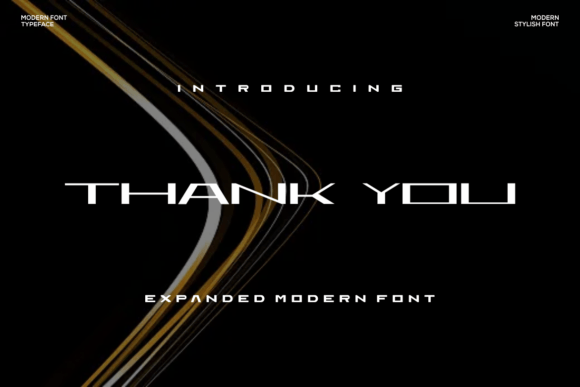
Introduction to Parno Font Font
Fonts play a crucial role in design, and the Parno Font font is a typeface that brings both character and versatility to any project. Whether you’re working on a branding project, a website, or a print design, the Parno Font font offers a unique style that can elevate your work.
Parno is a bold, modern font that looks cool and clean.
Its letters have a square shape, making it perfect for catching attention in logos, headlines, or posters With Parno, your words will stand out with style.
Key Features of Parno Font Font
Why Choose Parno Font Font?
The Parno Font font is more than just a typeface – it’s a design tool that helps you communicate your message with style and clarity. Its unique character set and versatile design make it suitable for a wide range of applications, from elegant invitations to bold headlines.
With its carefully crafted letterforms and balanced proportions, the Parno Font font ensures readability and visual appeal across all mediums.
What makes Parno Font font special?
The Parno Font font stands out with its unique design, exceptional readability, and versatility across various design applications.